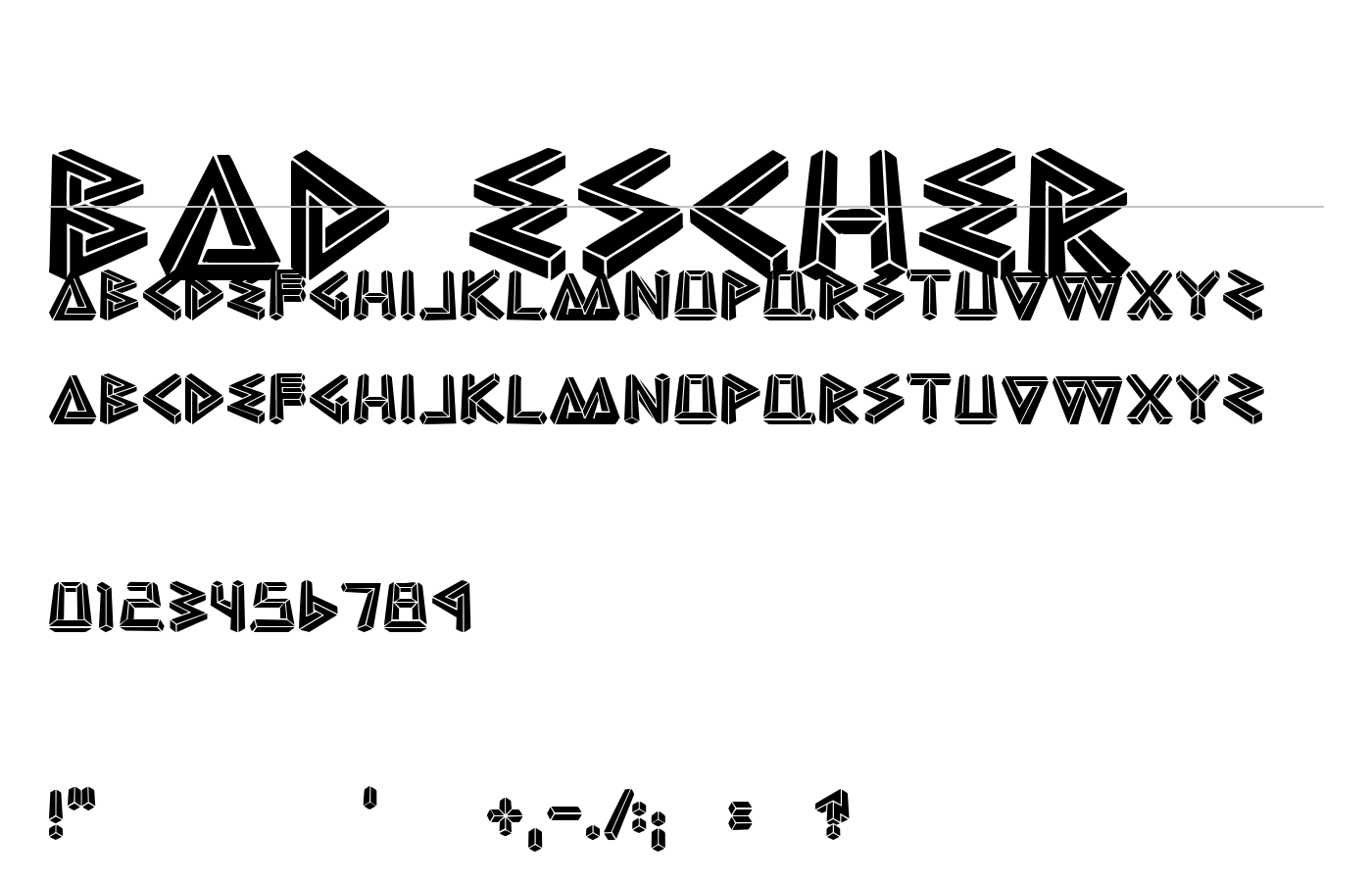
Bad Escher Font is a bold, geometric display typeface with a unique three-dimensional effect that creates an optical illusion reminiscent of Escher's art. Its sharp, angular lines and condensed letterforms evoke a modern, playful, and slightly futuristic vibe, making it ideal for eye-catching headlines, logos, and creative branding projects where a distinct and dynamic look is desired. This font works best in large sizes where its intricate design can be fully appreciated.
Bad Escher Font